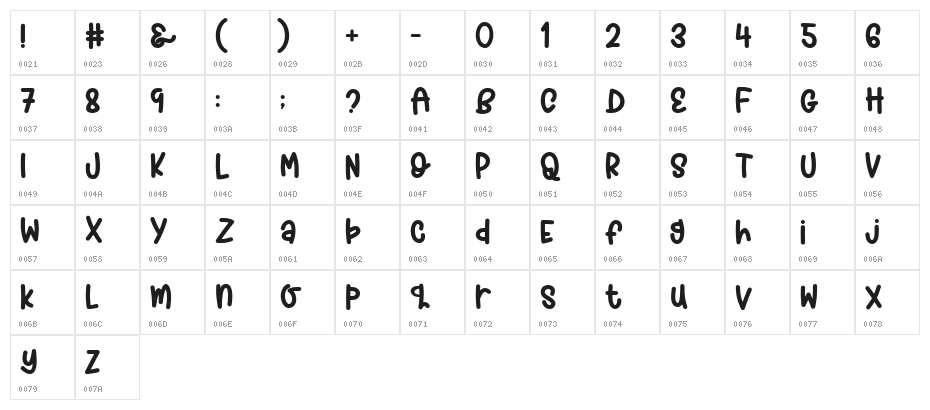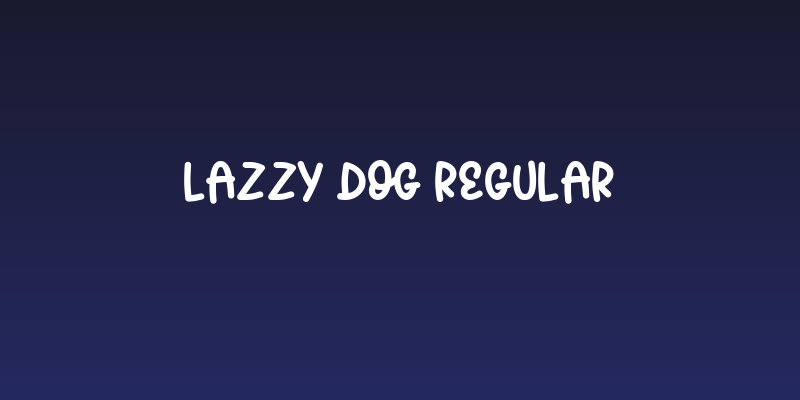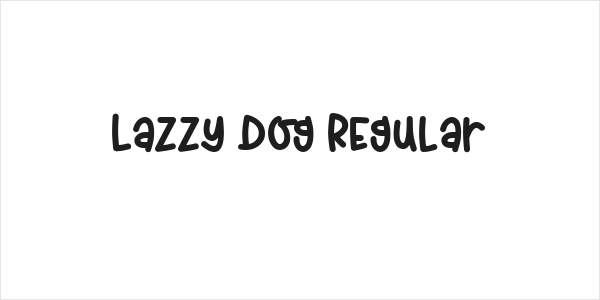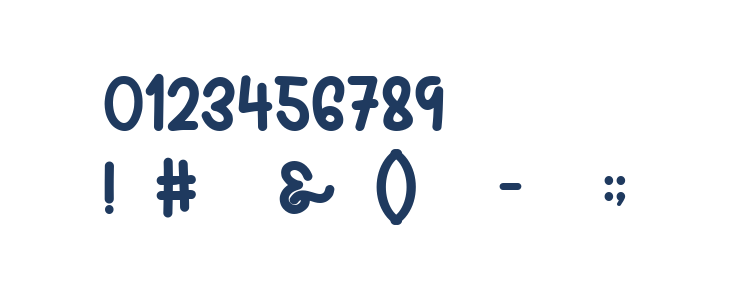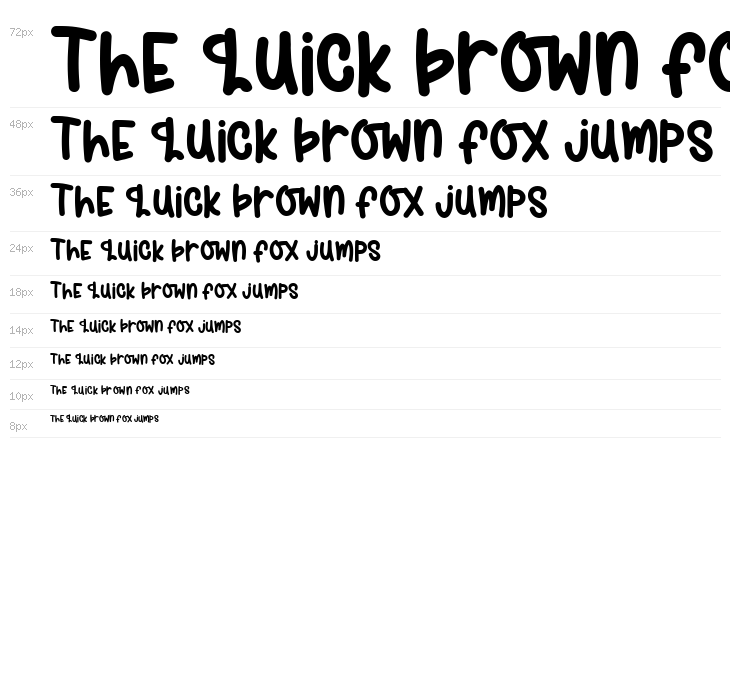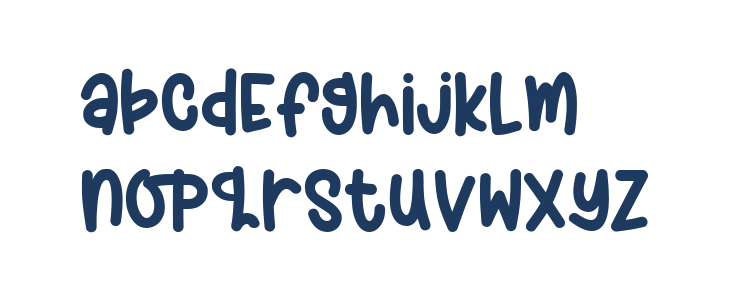
Lazzy Dog Regular Font
Lazzy Dog Regular Description
This playful and bold font features a handwritten style with rounded edges, giving it a friendly and approachable appearance. The letters are thick and consistent, with a slightly irregular baseline that adds to its casual charm. The uppercase and lowercase letters are well-balanced, and the numerals are clear and easy to read. Special characters are included, maintaining the same whimsical style. This font is perfect for projects that require a fun and informal touch, such as children's books, posters, or creative branding.
| Proposed Projects | Ideal for children's books, playful posters, creative branding, and informal invitations. |